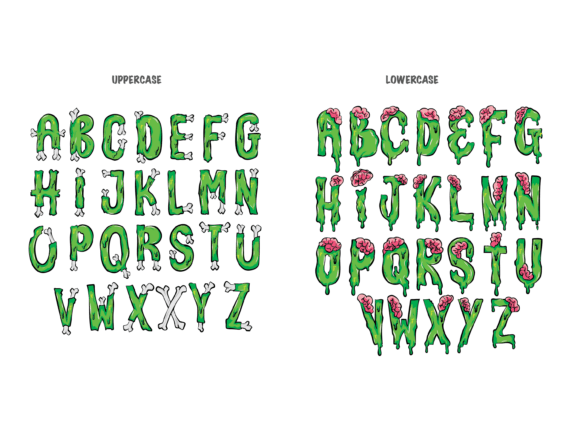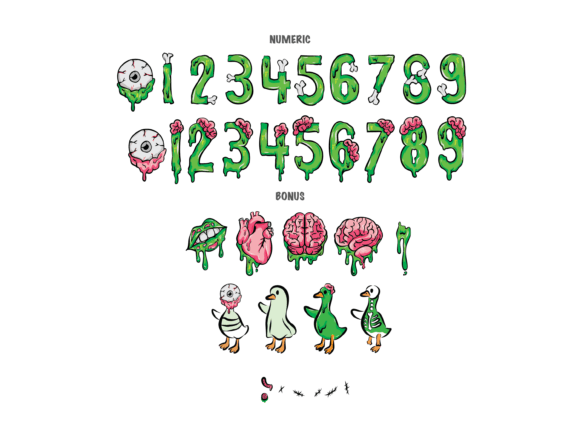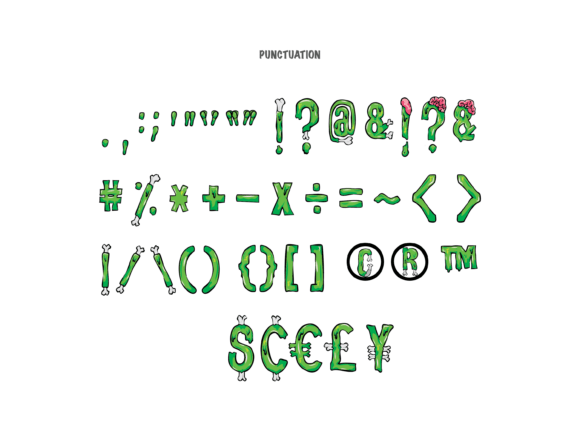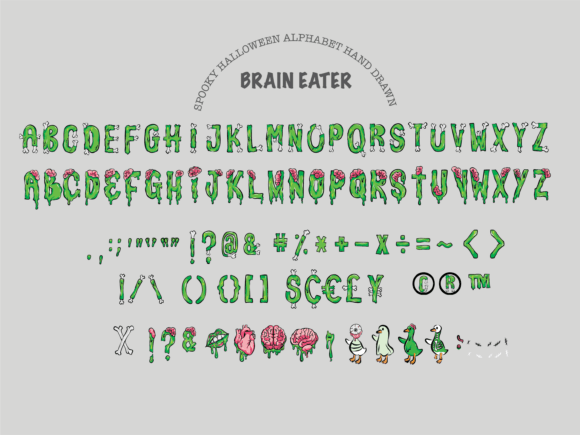
Brain Eater Font: The Ultimate Spooky Alphabet for Halloween Designs
Are you looking for a unique and creepy font to elevate your Halloween designs? Look no further than the Brain Eater Font, a hand-drawn dripping zombie lettering set that’s perfect for adding a spooky touch to your projects. In this article, we’ll dive into the features and benefits of this font, and explore how it can be used to create a wide range of Halloween-themed designs.
What is Brain Eater Font?
The Brain Eater Font is a one-of-a-kind, zombie-style font that’s designed to add a creepy and fun touch to your Halloween designs. Each letter is carefully hand-drawn to feature gooey green letters, melting brains, and spooky bones, making it ideal for creating eye-catching and memorable designs. Whether you’re working on T-shirt designs, party invitations, stickers, or digital artwork, this font is sure to make your projects stand out.
Key Features of Brain Eater Font
The Brain Eater Font comes with a range of exciting features that make it perfect for Halloween designs. Some of the key features include:
- Full Spooky Alphabet: The font includes a complete alphabet (A-Z) of hand-drawn, dripping letters that are sure to add a spooky touch to your designs.
- Bonus PNG Illustrations: In addition to the font, you’ll also receive a range of bonus PNG illustrations, including brains, bones, hearts, and funny zombie ducks. These illustrations can be used to add extra character and personality to your designs.
Perfect for a Range of Halloween Projects
The Brain Eater Font is incredibly versatile and can be used for a wide range of Halloween projects, including:
- Halloween T-Shirt Design: Create eye-catching and spooky T-shirt designs that are sure to be a hit this Halloween.
- Spooky Party Invitations: Use the font to create creepy and fun party invitations that will set the tone for your Halloween party.
- Digital Stickers or Clipart Packs: Create digital stickers or clipart packs that can be used to add a spooky touch to your designs.
- Kids Zombie Illustrations: Use the font to create fun and creepy zombie illustrations for kids.
- Horror Movie Poster: Create a horror movie poster that will send chills down the spine of your audience.
Why Choose Brain Eater Font?
So why choose the Brain Eater Font for your Halloween designs? Here are just a few reasons:
- Unique and Eye-Catching: The font is truly one-of-a-kind and is sure to grab attention.
- Perfect for Kids and Adults Alike: The font is perfect for creating designs for kids and adults alike, making it a great addition to your Halloween design arsenal.
Tips for Using Brain Eater Font
Here are a few tips for getting the most out of the Brain Eater Font:
- Experiment with Different Colors: Don’t be afraid to experiment with different colors and textures to add depth and interest to your designs.
- Use the Bonus PNG Illustrations: Make sure to use the bonus PNG illustrations to add extra character and personality to your designs.
- Pair with Other Fonts: Consider pairing the Brain Eater Font with other fonts to create a unique and eye-catching design.